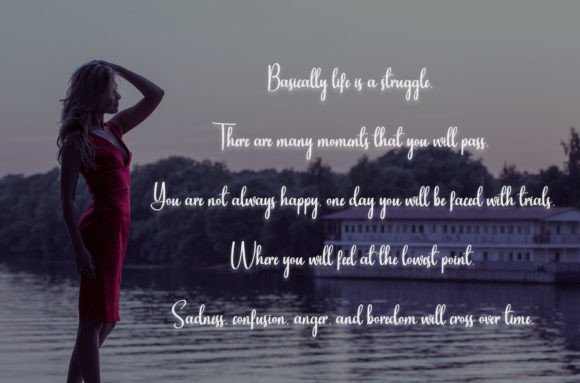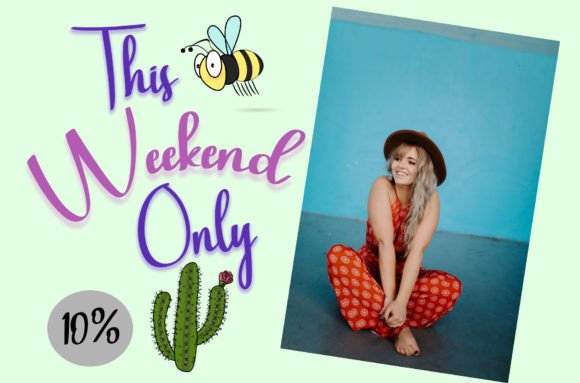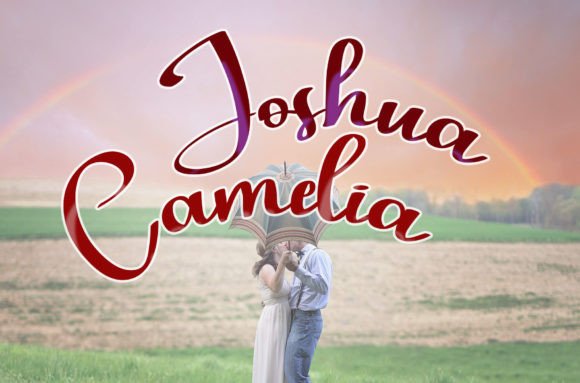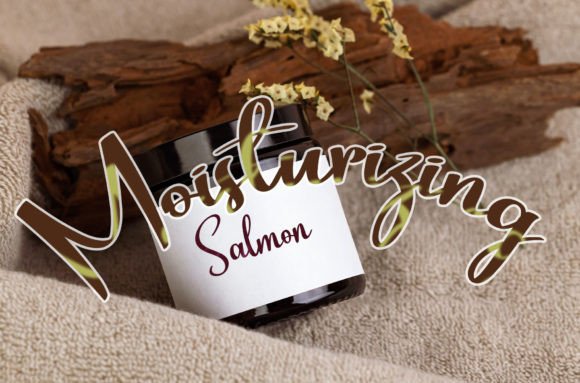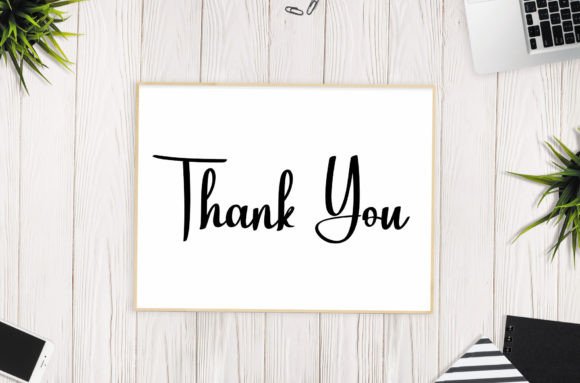
Discover the Charm of General Font: Your New Go-To Handwritten Font
Are you tired of using the same old fonts for your crafts, digital designs, presentations, and greeting cards? Look no further! General Font is a simple and friendly handwritten font that’s about to become your new favorite. With its unique charm and versatility, General Font is perfect for any occasion.
What Makes General Font So Special?
General Font is a carefully crafted handwritten font that’s designed to be both elegant and approachable. Its simplicity makes it easy to read and understand, while its friendly tone adds a touch of warmth and personality to any project. Whether you’re a designer, crafter, or simply someone who loves to create, General Font is sure to become your go-to choice.
Uses for General Font
One of the best things about General Font is its versatility. Here are just a few ideas for how you can use it:
- Crafts: Add a personal touch to your handmade crafts, such as journals, cards, and scrapbook pages.
- Digital Design: Use General Font in your digital designs, such as social media graphics, blog posts, and website headers.
- Presentations: Add a touch of personality to your presentations and make them more engaging.
- Greeting Cards: Create beautiful and heartfelt greeting cards for any occasion.
Why Designers Love General Font
As a designer, you’re always on the lookout for fonts that are both stylish and functional. General Font delivers on both counts. Here are just a few reasons why designers love General Font:
- Ease of use: General Font is easy to read and understand, making it perfect for body text or headings.
- Flexibility: General Font works well in a variety of contexts, from digital designs to print materials.
- Uniqueness: General Font has a distinctive charm that sets it apart from more traditional fonts.
Why Crafters Love General Font
Crafters love General Font for many of the same reasons designers do. Here are a few additional reasons why General Font is a favorite among crafters:
- Personal touch: General Font adds a personal touch to handmade crafts, making them feel more special and unique.
- Ease of use: General Font is easy to write with, making it perfect for journaling and other crafts that involve writing.
- Versatility: General Font works well with a variety of crafting techniques, from stamping to die-cutting.
Tips for Using General Font
Here are a few tips for getting the most out of General Font:
- Experiment with sizes: General Font looks great in a variety of sizes, from small headings to large display text.
- Pair with other fonts: General Font pairs well with a variety of other fonts, so don’t be afraid to get creative.
- Use it consistently: Use General Font consistently throughout your project to create a cohesive look.
General Font is a simple and friendly handwritten font that’s perfect for any occasion. With its versatility, ease of use, and unique charm, it’s sure to become your new go-to font. Whether you’re a designer, crafter, or simply someone who loves to create, General Font is a great addition to your font collection.